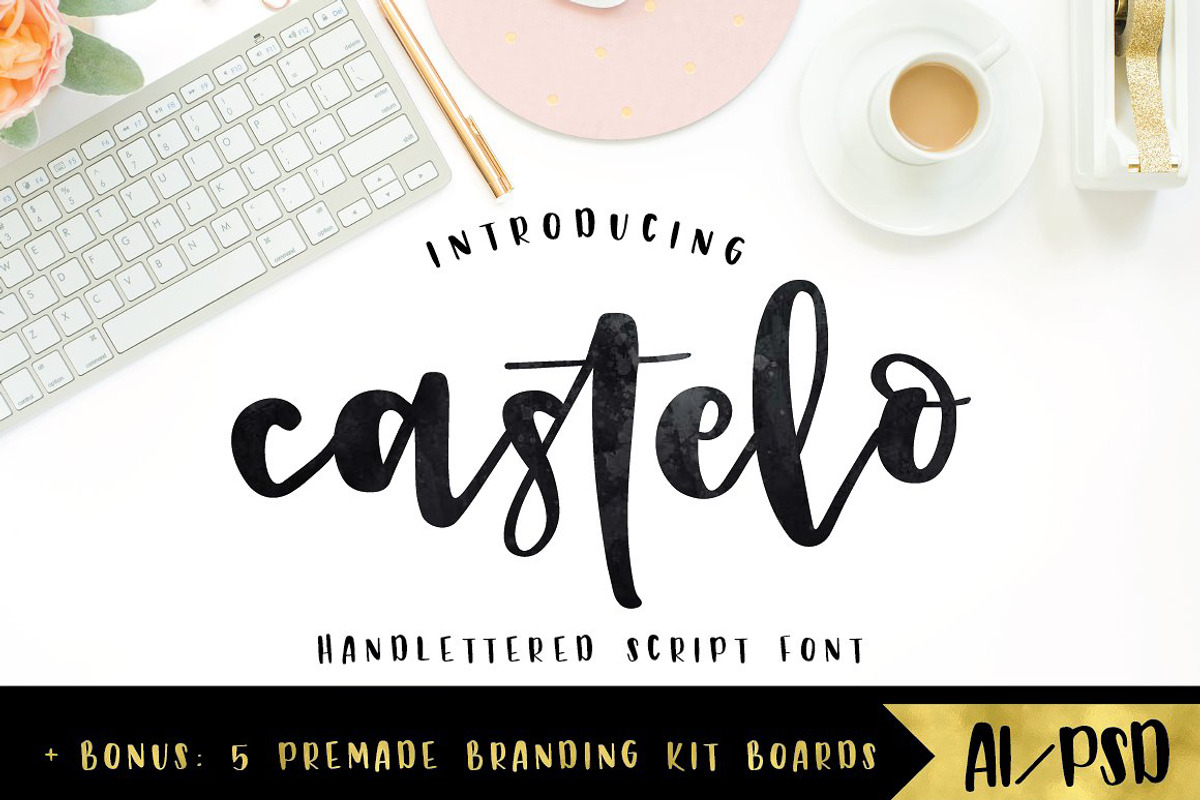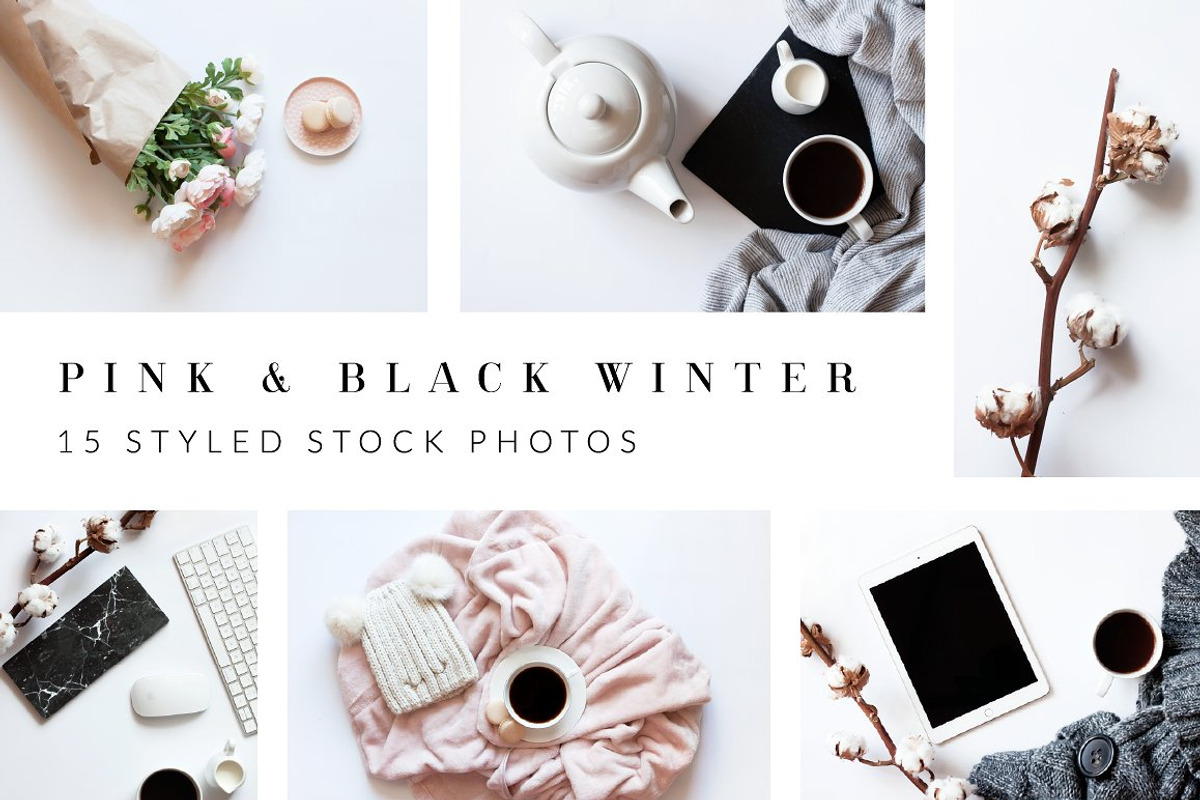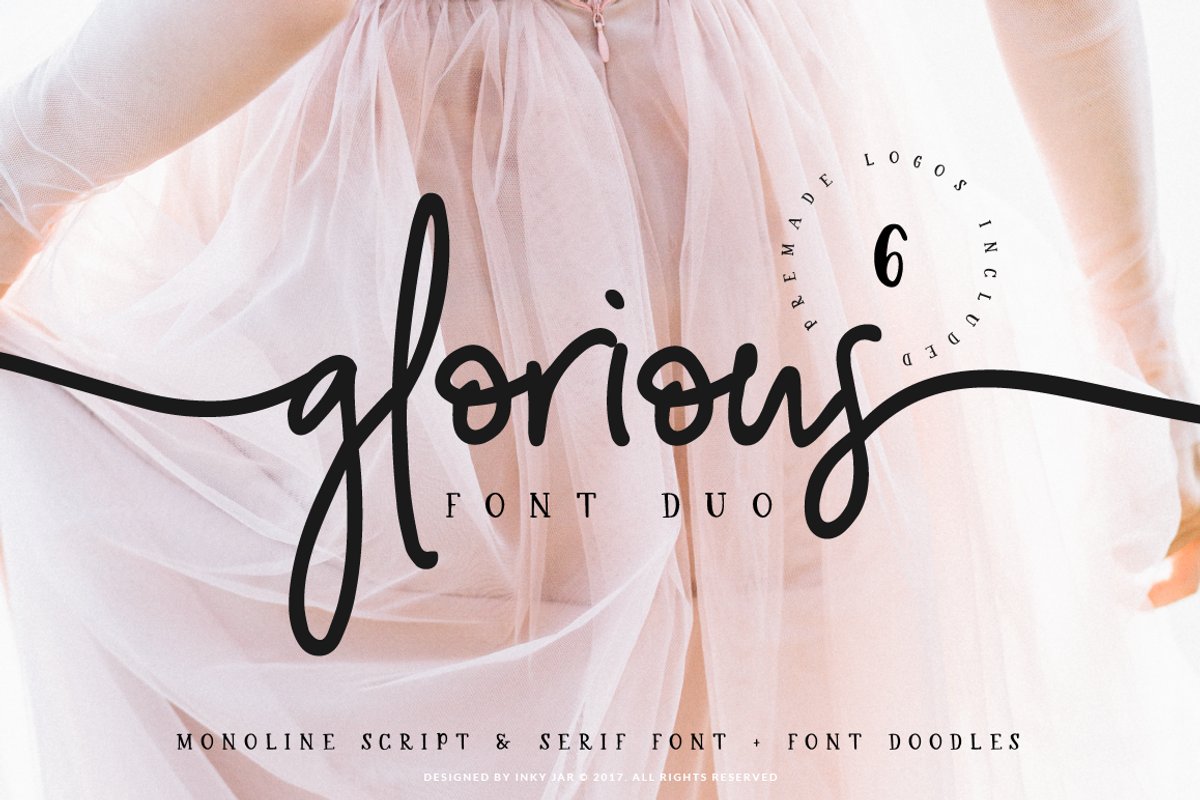
Presenting the Bestsellers Bundle - 12 font & graphics sets which are perfect for any project or wedding, branding or just creating new products for your shop! These are my bestselling fonts and graphics, now all grouped for just $29!
Full of script fonts, including 2 sets of watercolor foliage, florals, patterns, bouquets and wreaths, you can really create wonderful things which will stay cohesive in style since they all come from the same author. You even have a set of winter styled stock photos to add to your work!
- 1. Dainty Blossom Watercolor collection: https://creativemarket.com/inkyjar/3356947-Watercolor-Col.-Dainty-Blossom
- 2. Just Married Font Duo: https://creativemarket.com/inkyjar/3035835-Just-Married-Font-Collection
- 3. The Girl font Duo: https://creativemarket.com/inkyjar/2854368-The-Girl-Font-Duo12-PSD-Insta-posts
- 4. Delicate Greenery, watercolor collection: https://creativemarket.com/inkyjar/3260725-Delicate-Greenery-WatercolorPencil
- 5. Palm Beach, script font: https://creativemarket.com/inkyjar/2783560-Palm-Beach-Casual-Script-Font
- 6. Gingerbread font duo: https://creativemarket.com/inkyjar/1916294-Gingerbread-Font-Duo-9-Logos
- 7. Mondellina script font: https://creativemarket.com/inkyjar/1568664-Mondellina-Script-6-logo-pack
- 8. Besotted script font: https://creativemarket.com/inkyjar/2059608-Besotted-Modern-Calligraphy-Script
- 9. Glorious font duo: https://creativemarket.com/inkyjar/1971363-Glorious-Font-Duo-Extras
- 10. Castelo, brush script font: https://creativemarket.com/inkyjar/1799079-Castelo-Script-5-Branding-Boards
- 11. Seamsless patterns collection: https://creativemarket.com/inkyjar/1568422-Seamless-vector-patterns-pack-of-8
- 12. Winter styled stock photo collection: https://creativemarket.com/inkyjar/2011186-Winter-Styled-Stock-Photo-Col.